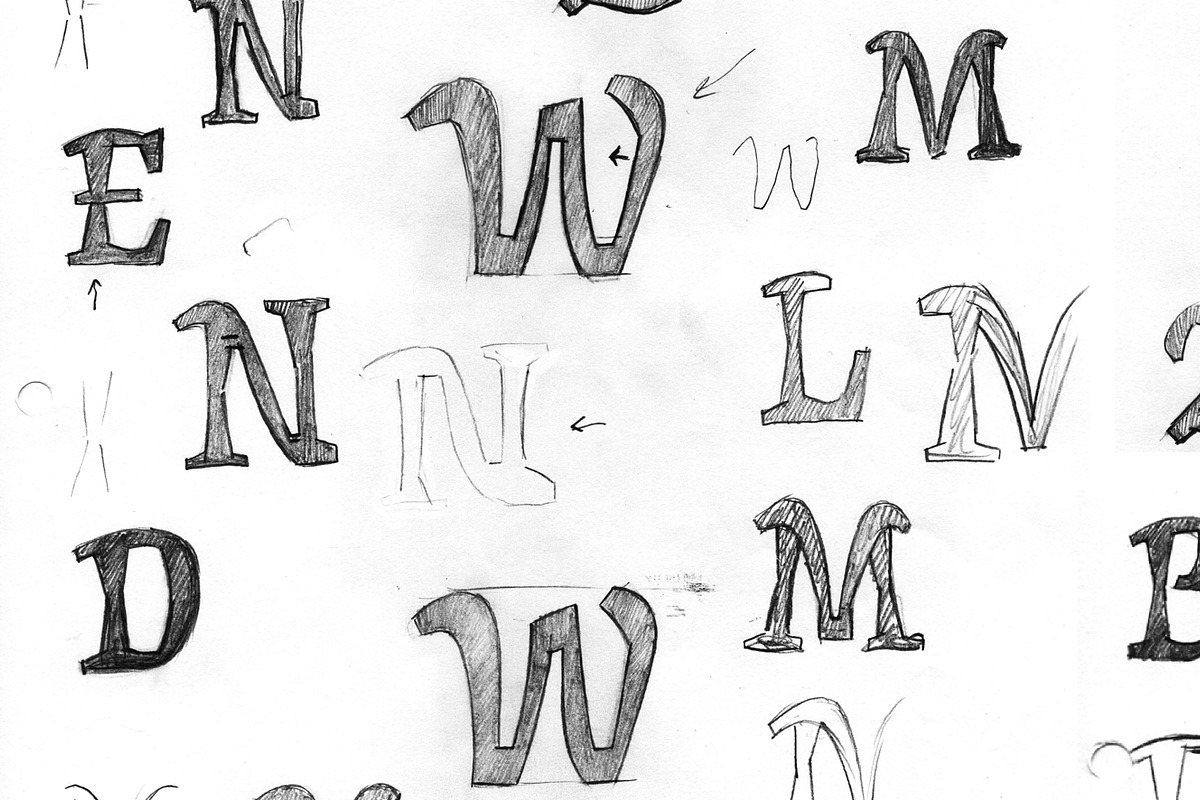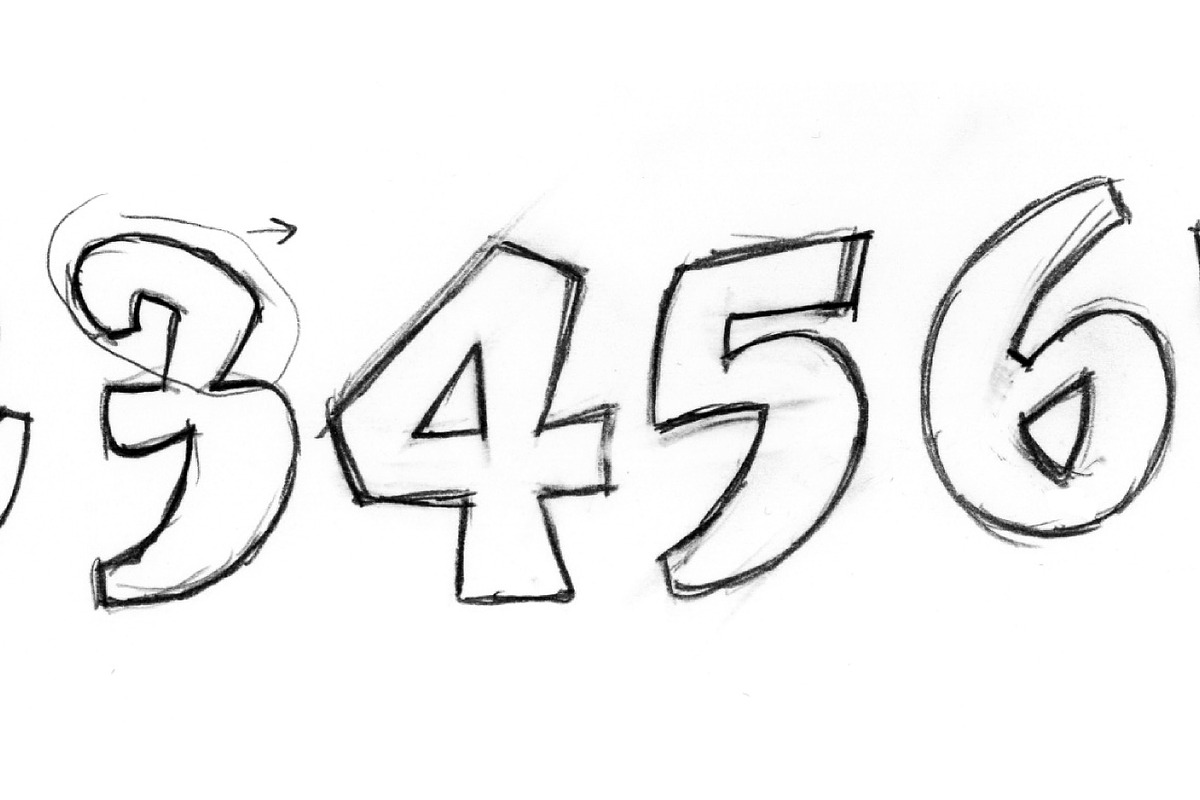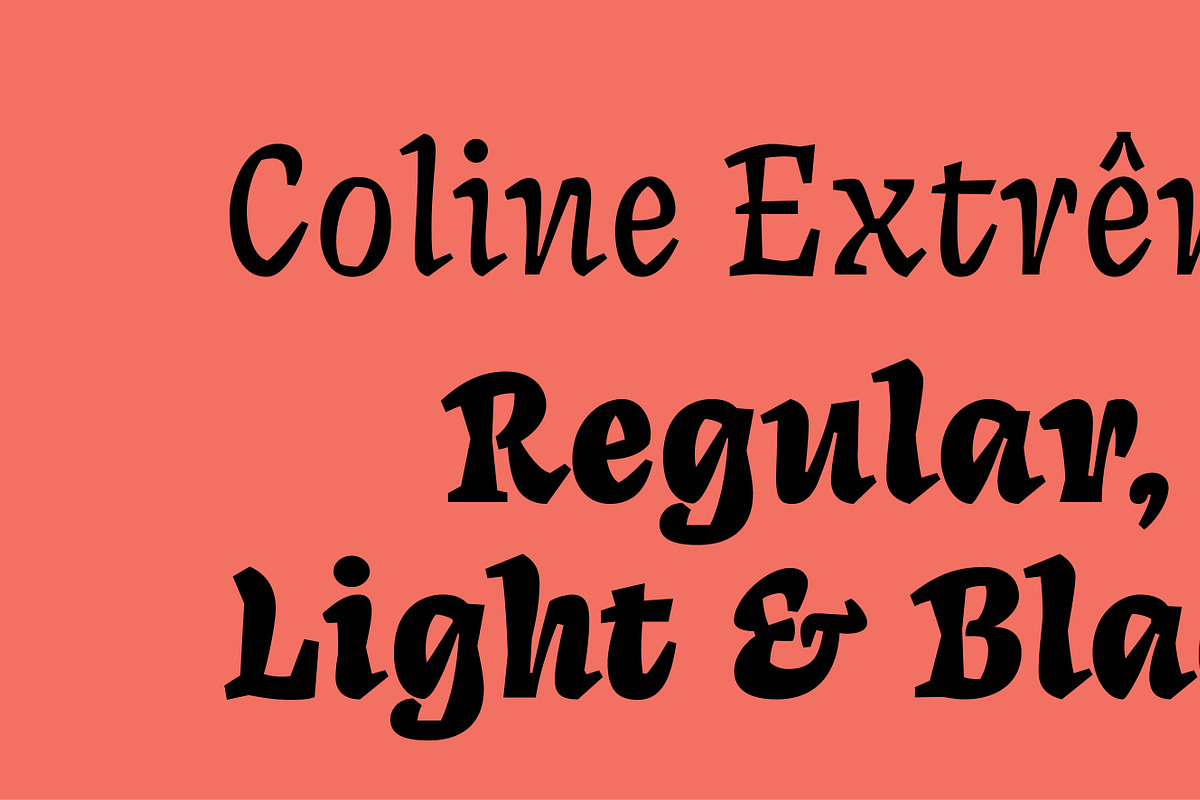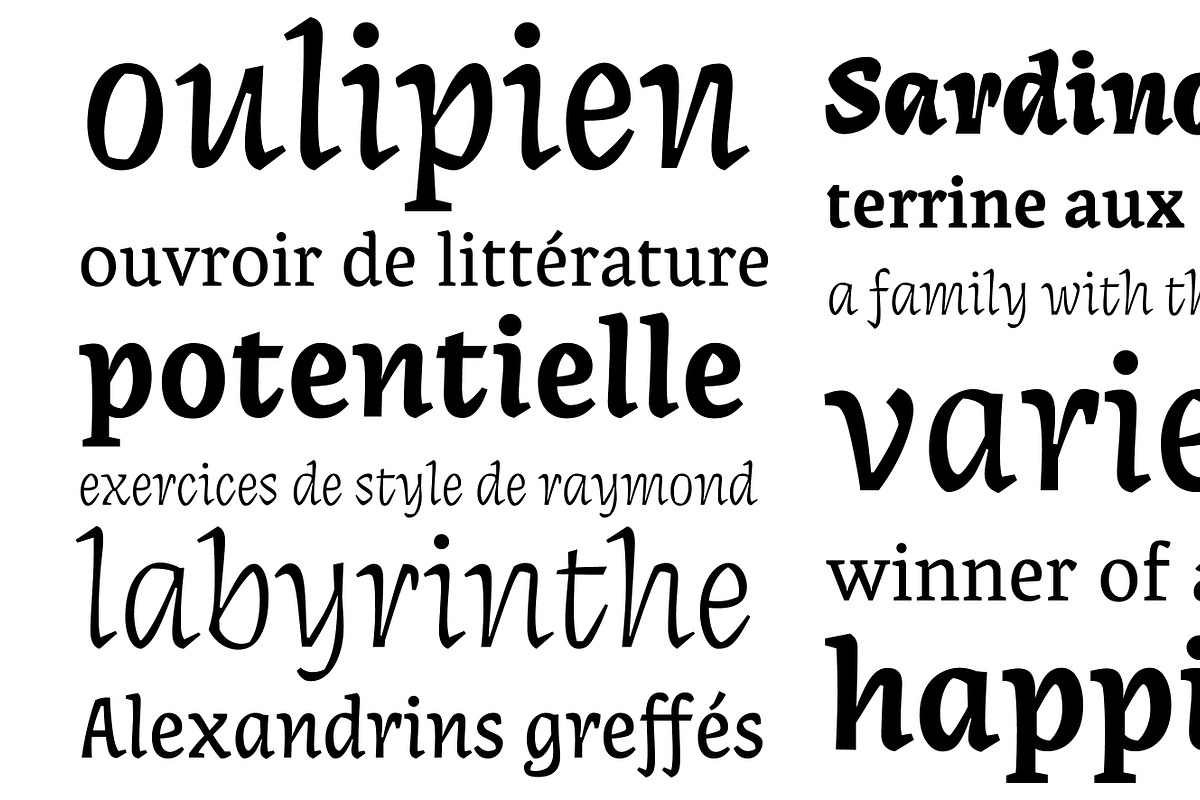
Coline Extreme
Coline is a serif typeface family designed for pocket books. It features three variations: Coline Premiere, Coline Cursive, and Coline Extreme. Each variation offers distinct rhythms, angles, and stroke styles, creating a wide range of typographic expression. The name pays tribute to Simon de Collines, a pioneering French printer known for affordable pocket books. Coline Extreme, with its bold black version and contrasting curves and cuts, excels at display sizes.